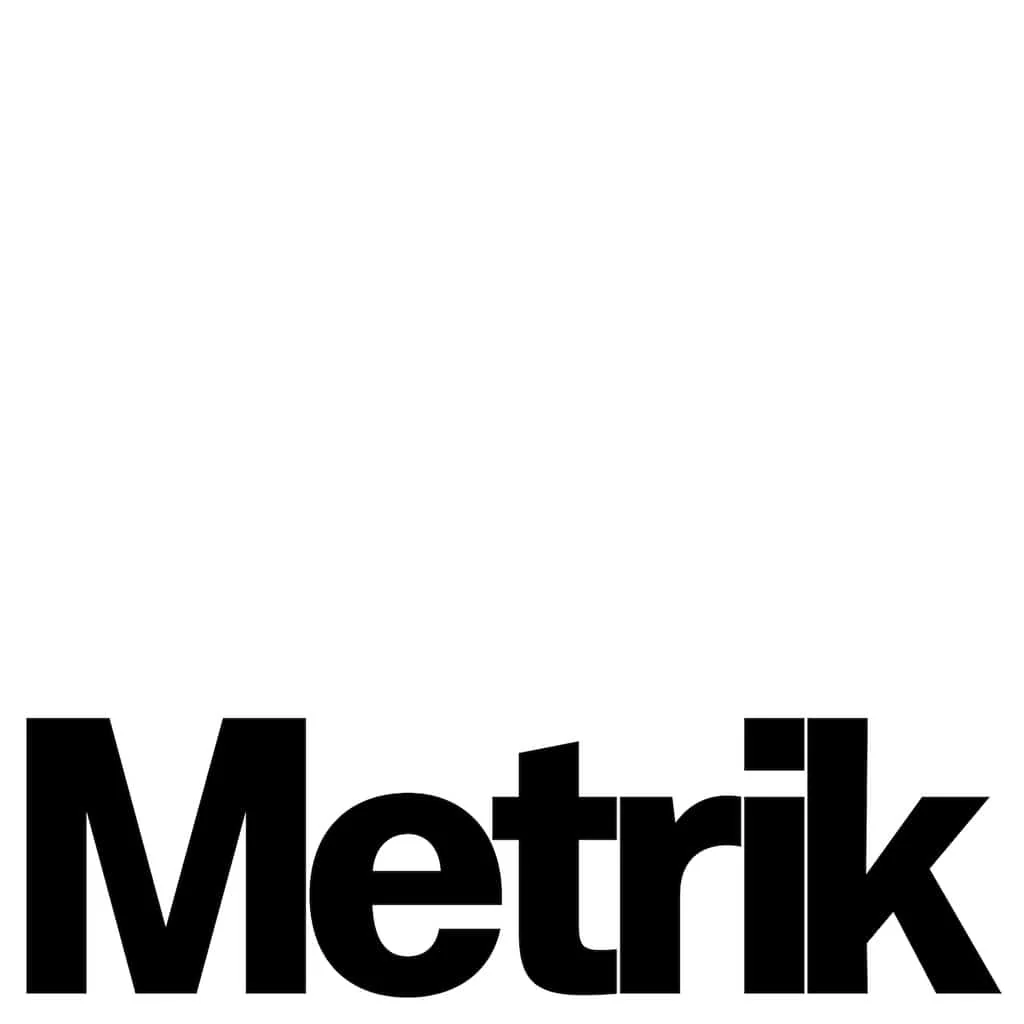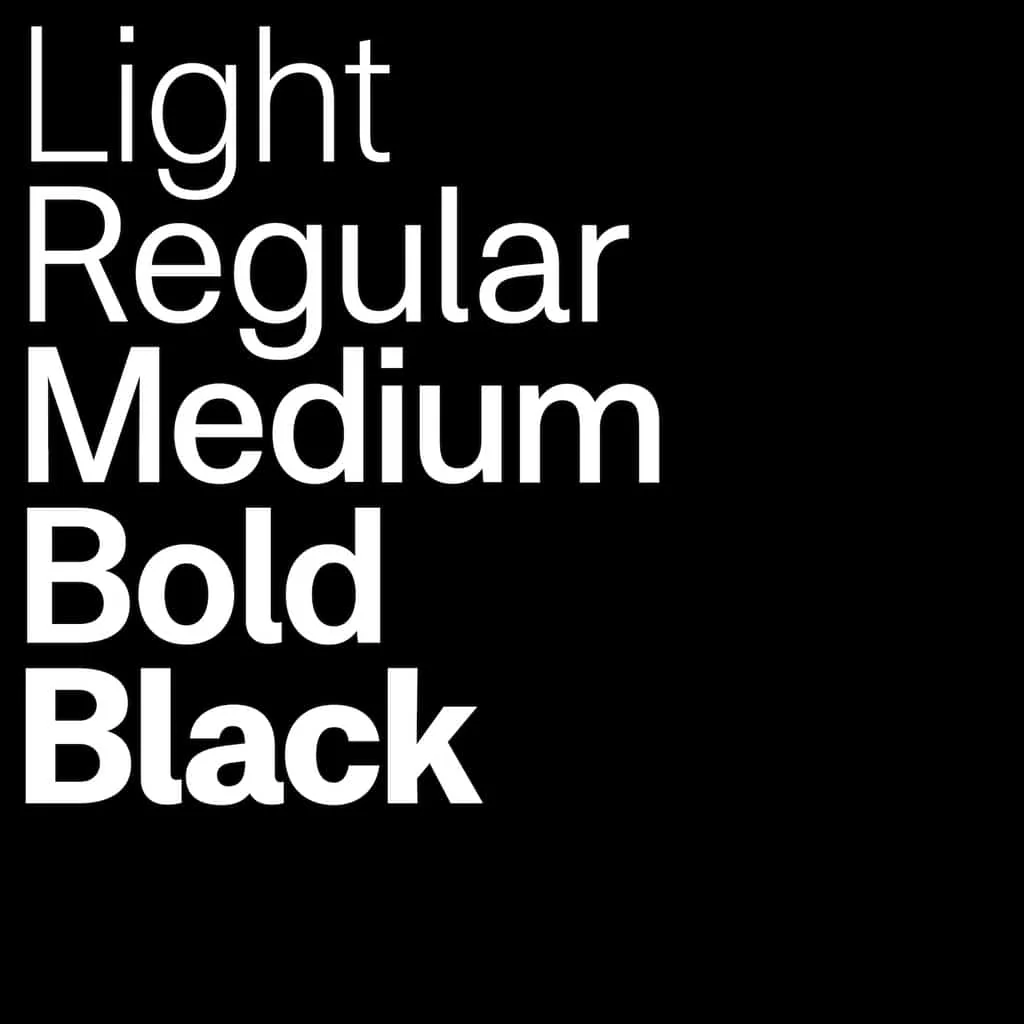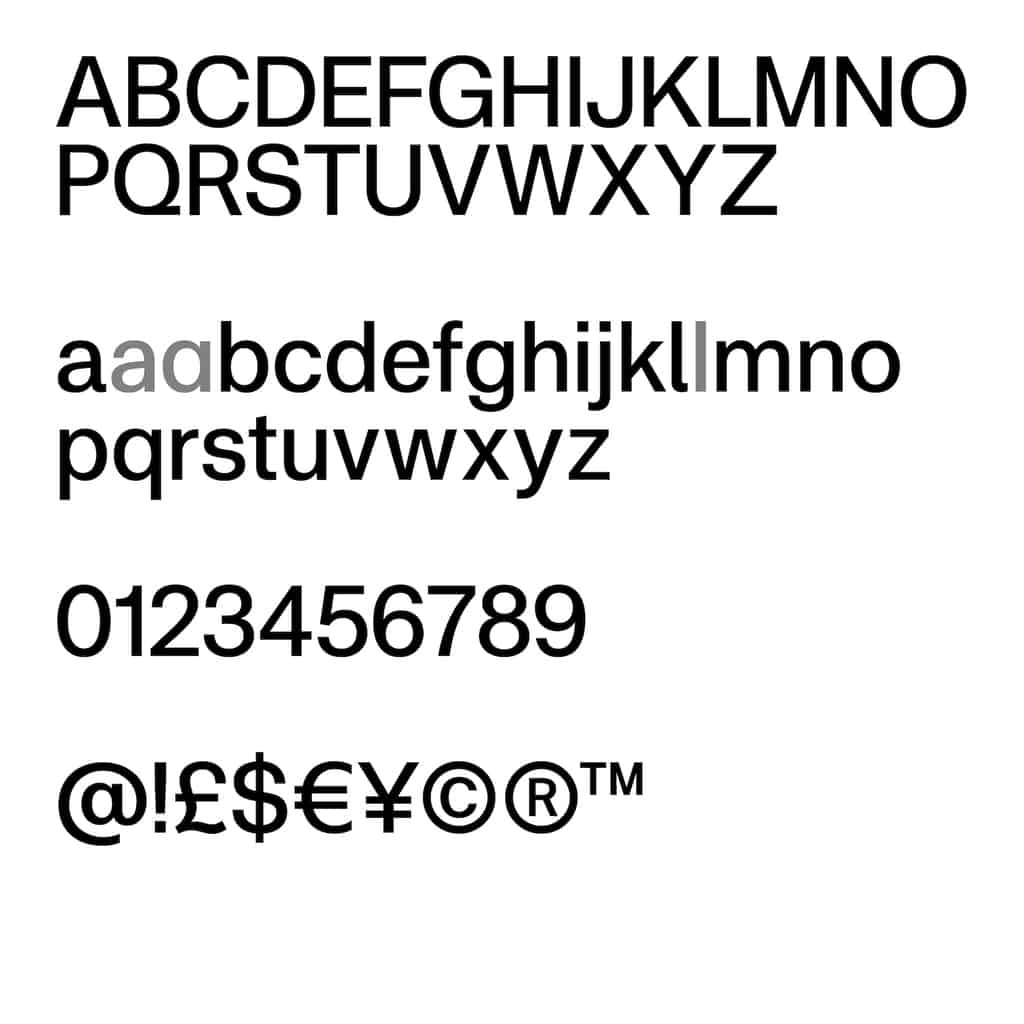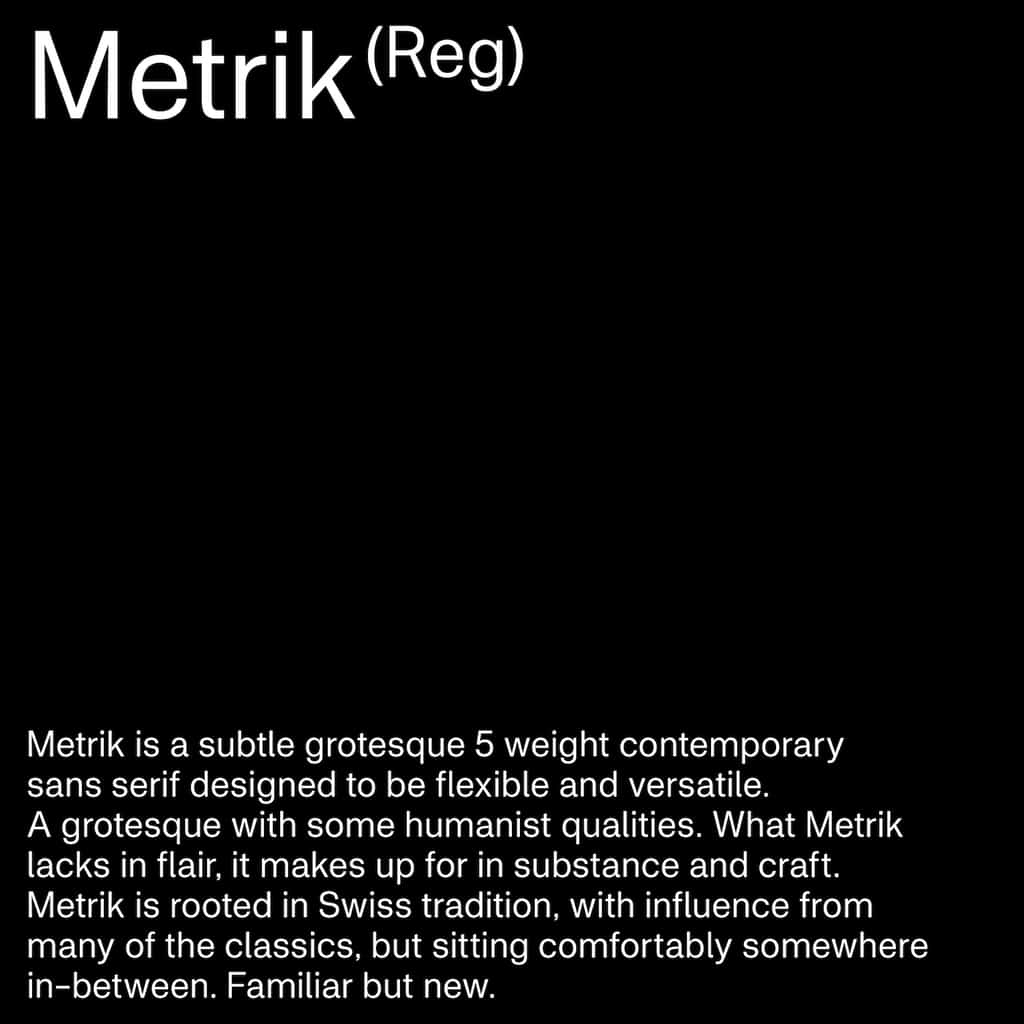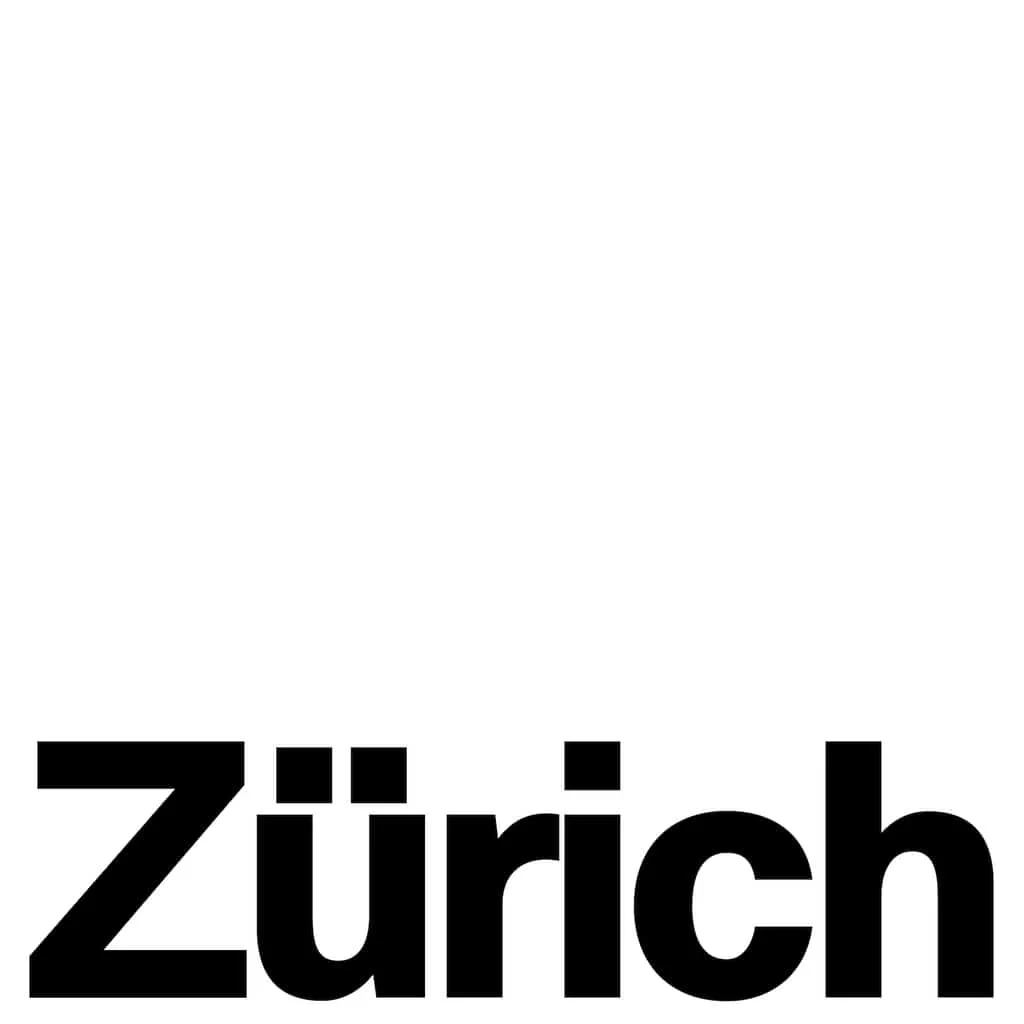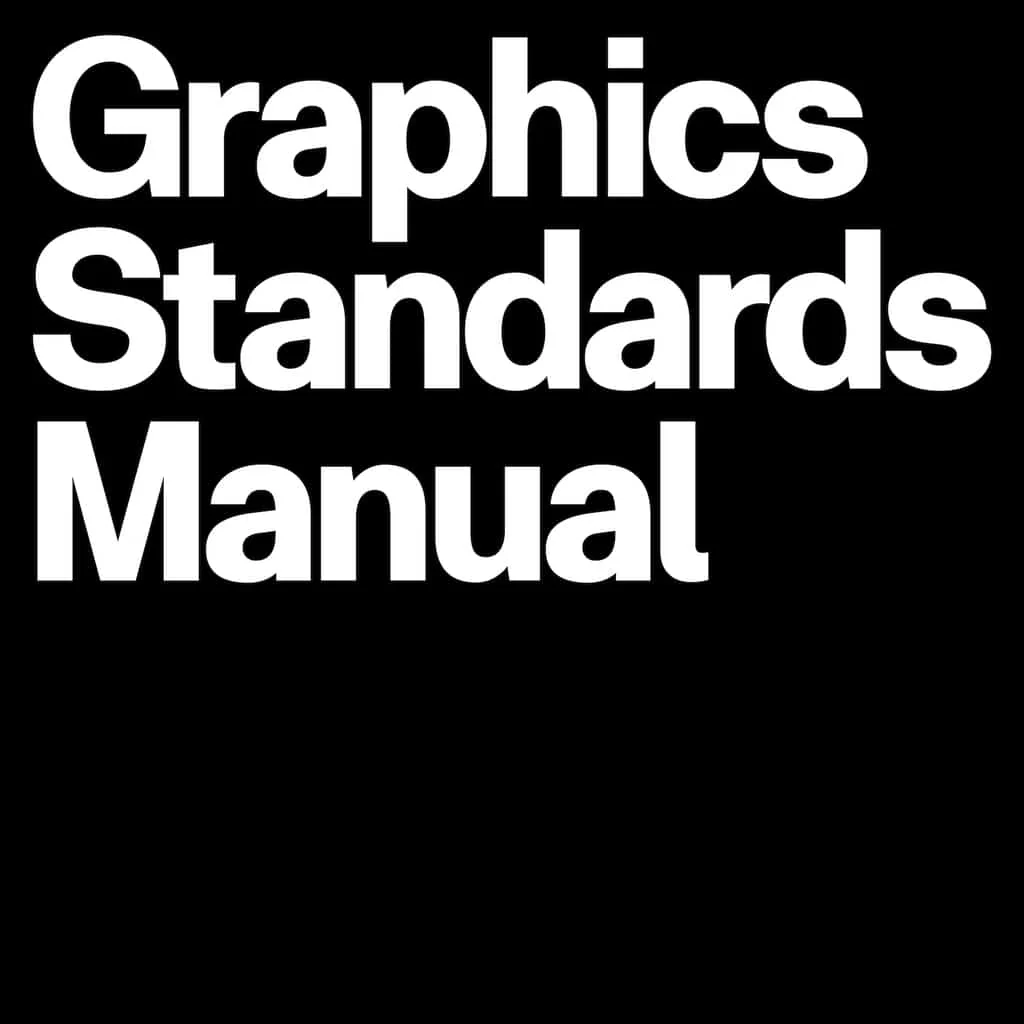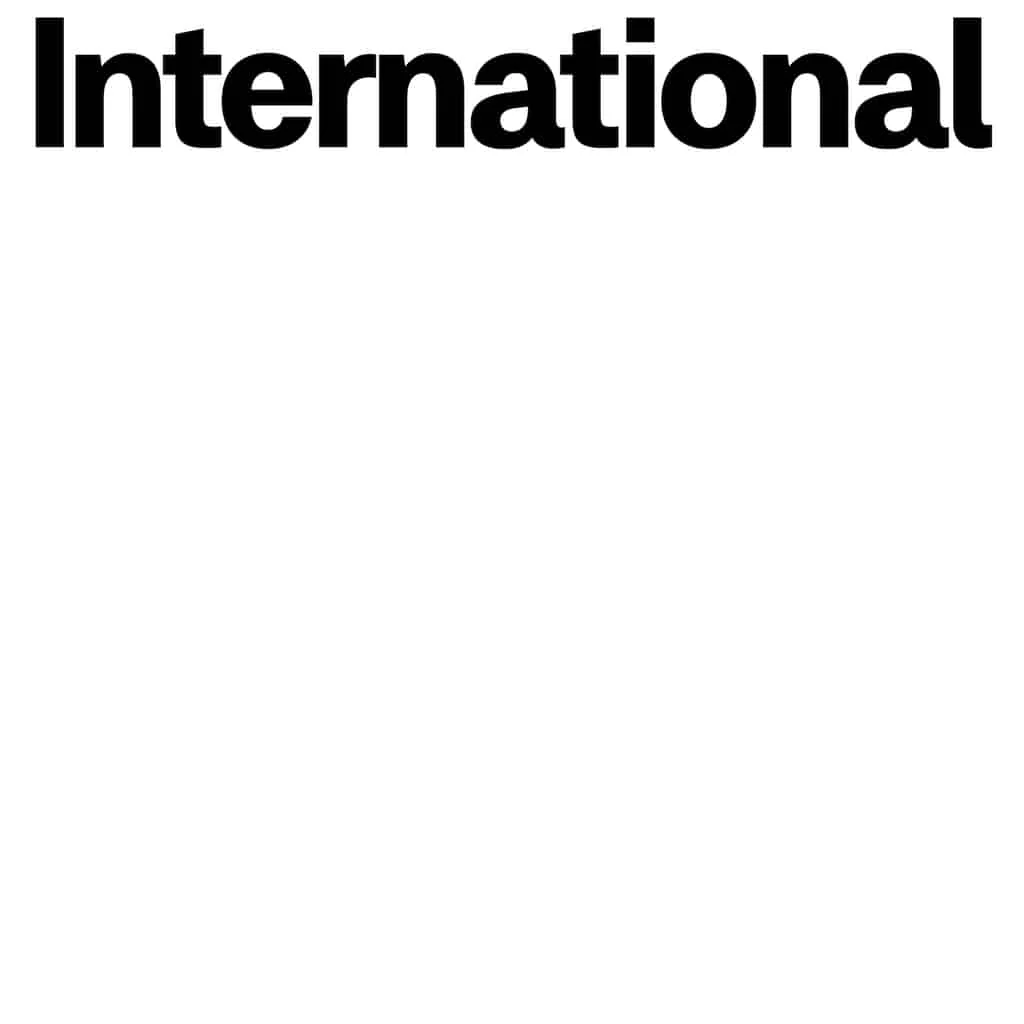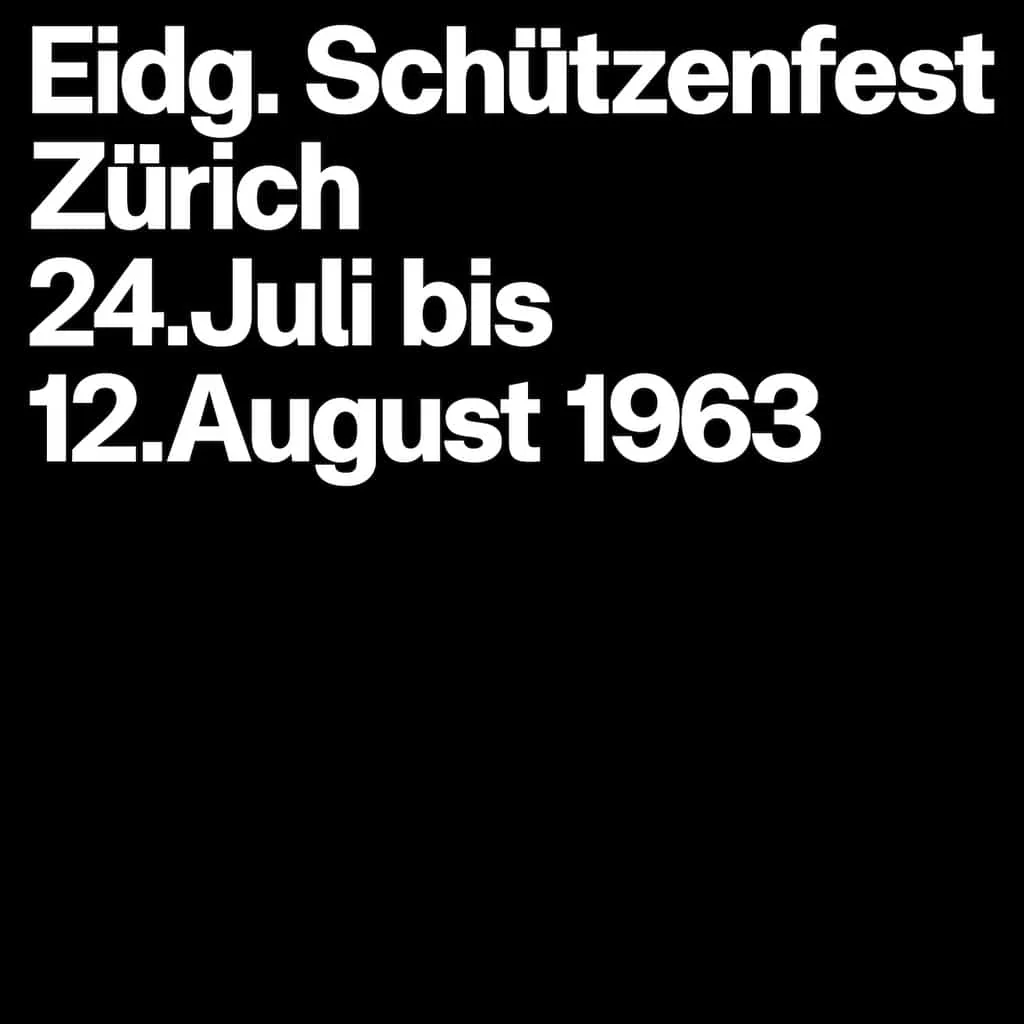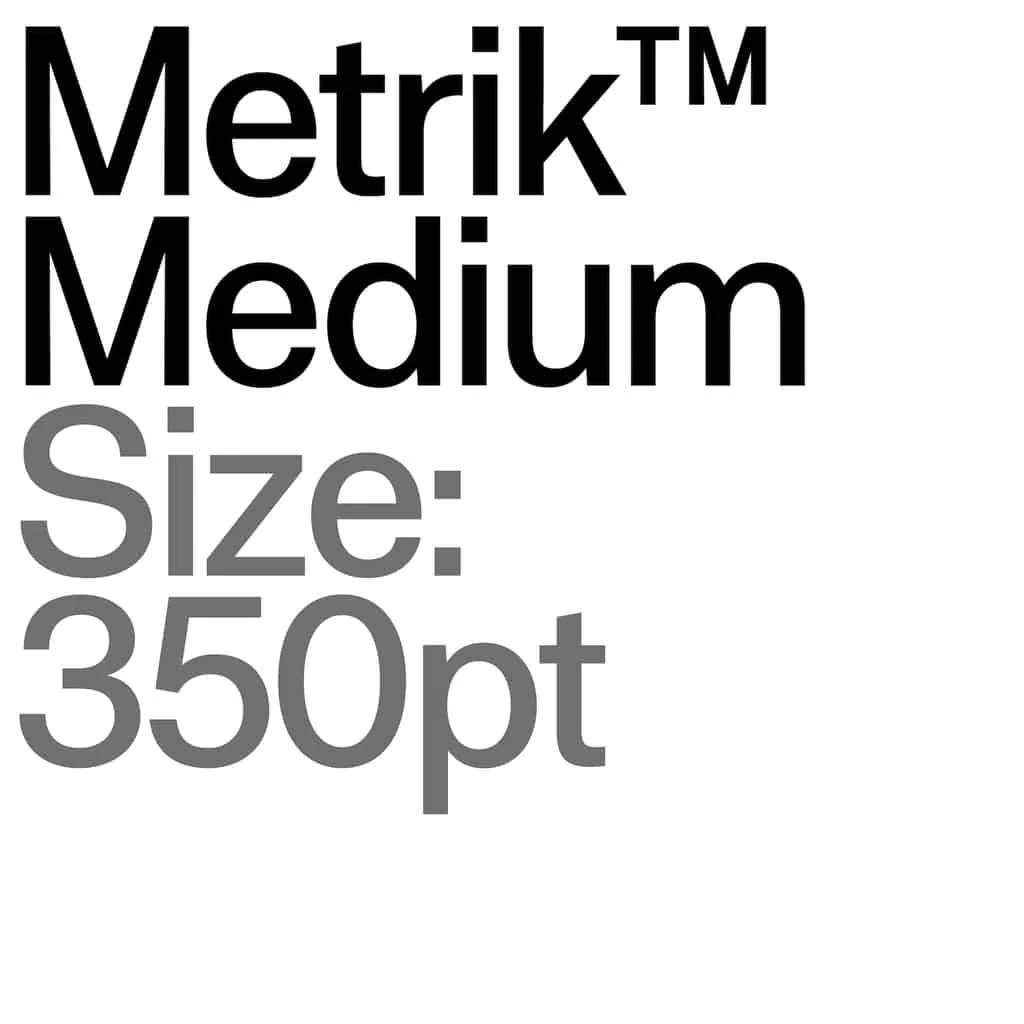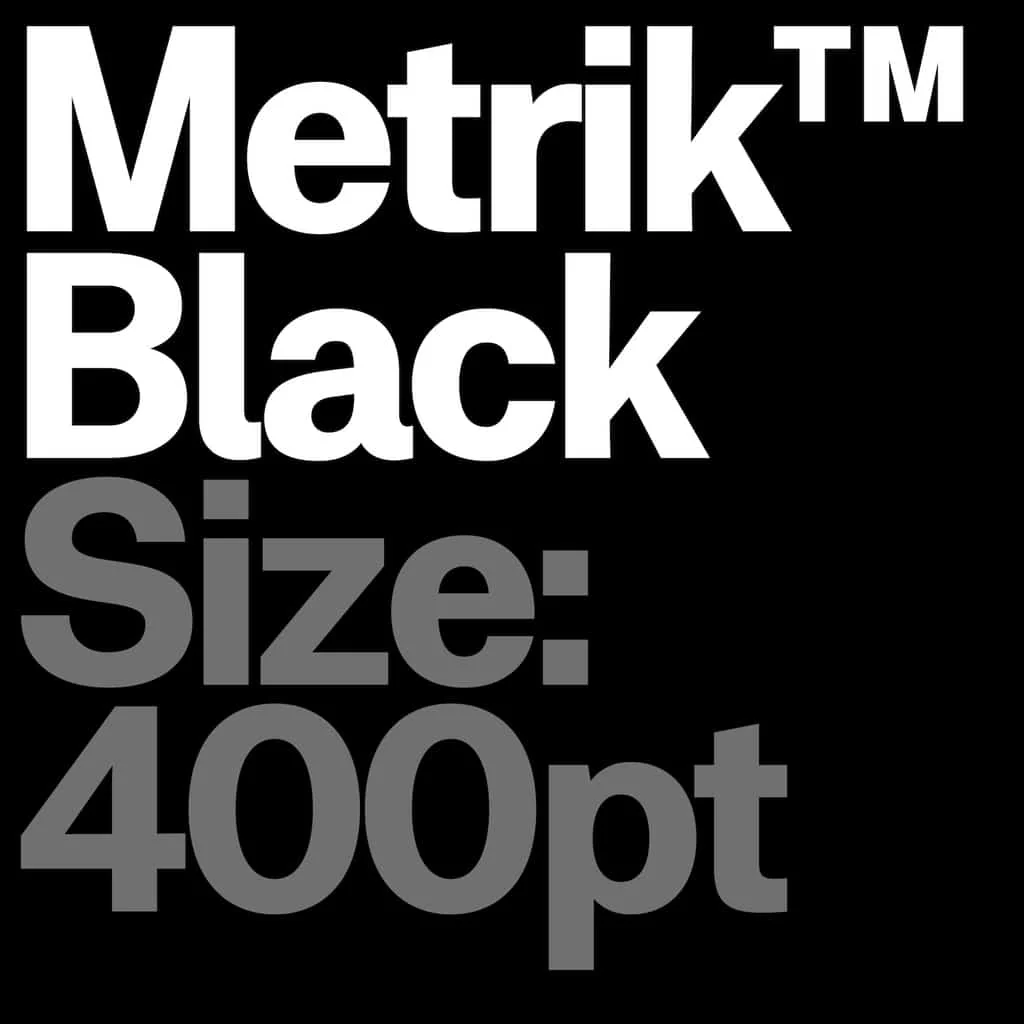
Metrik
Metrik is a refined grotesque sans serif available in 5 weights, designed to blend flexibility with a touch of unexpected character. Rooted in Swiss typographic tradition yet infused with modern influences, Metrik combines familiarity with innovative design elements.
With its subtle humanist qualities, Metrik bridges the gap between traditional Swiss sans serifs and contemporary aesthetics. Its clean lines and balanced proportions ensure versatility across various design contexts, from editorial layouts to branding and web typography.
Designed for clarity and readability, Metrik excels in both text and display settings, offering a subtle uniqueness that sets it apart from classic sans serif typefaces.